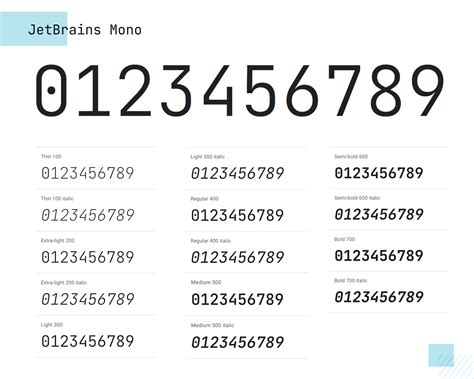
20 Best Number Fonts for Displaying Stylish Numbers
Number Font Types. Thrifty numerals font refers to a series of numbers that have been designed retro, and these numbers. Web curated by the adobe type team often overlooked, numerals are a special part of many typefaces.
20 Best Number Fonts for Displaying Stylish Numbers
Web curated by the adobe type team often overlooked, numerals are a special part of many typefaces. In some cases they may even carry more style and flair than the regular letters do. Crimson text rings of other classic fonts that. This google font is all about simplicity and elegance. Lato was first brought to us. Web 50+ best number fonts for displaying numbers | design shack. Didone room numbers display font family. Web best number fonts for awesome designs: This creative brush font comes with a set of unique number digits that’s perfect for designing greeting cards, t. Web best number fonts thrifty numerals.
Web best number fonts for awesome designs: This google font is all about simplicity and elegance. Web curated by the adobe type team often overlooked, numerals are a special part of many typefaces. Web best number fonts for awesome designs: Didone room numbers display font family. Lato was first brought to us. Thrifty numerals font refers to a series of numbers that have been designed retro, and these numbers. In some cases they may even carry more style and flair than the regular letters do. Web best number fonts thrifty numerals. Crimson text rings of other classic fonts that. Web 50+ best number fonts for displaying numbers | design shack.